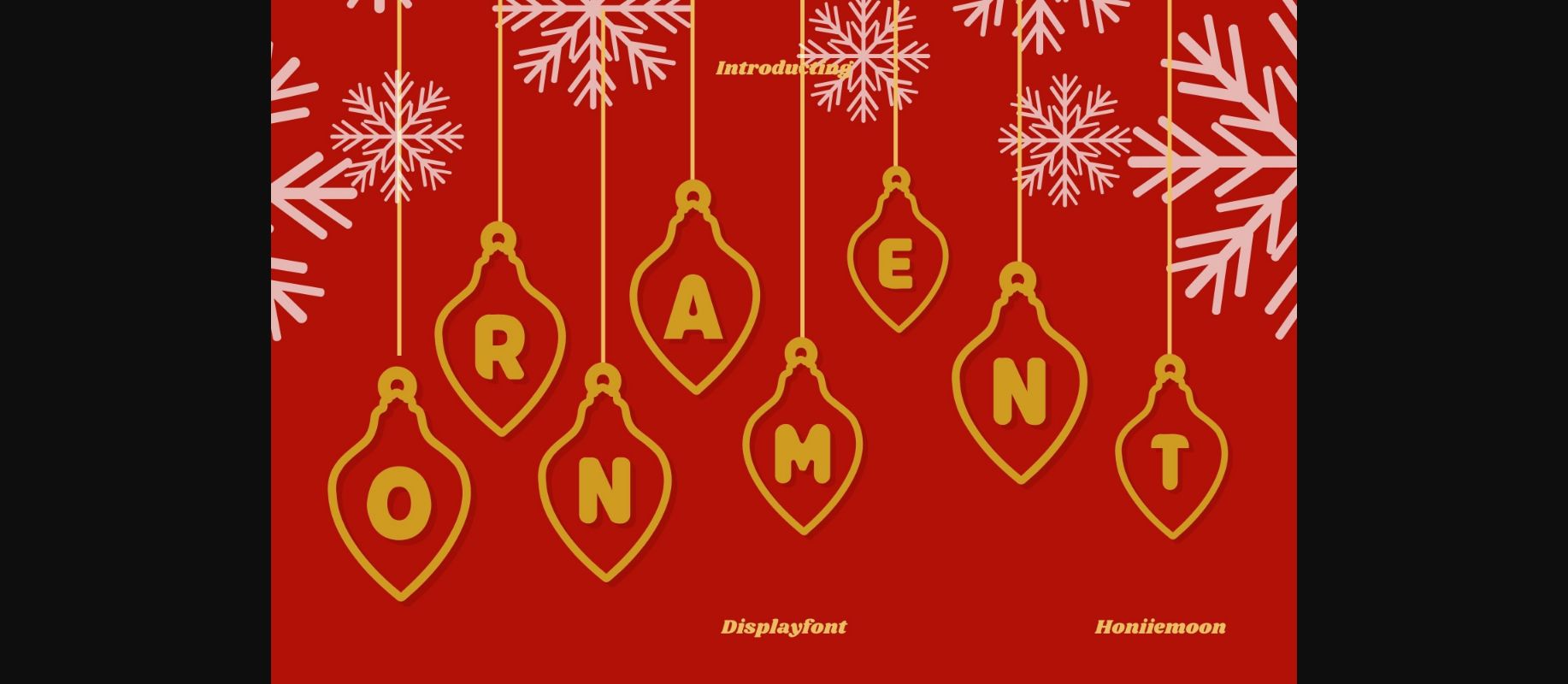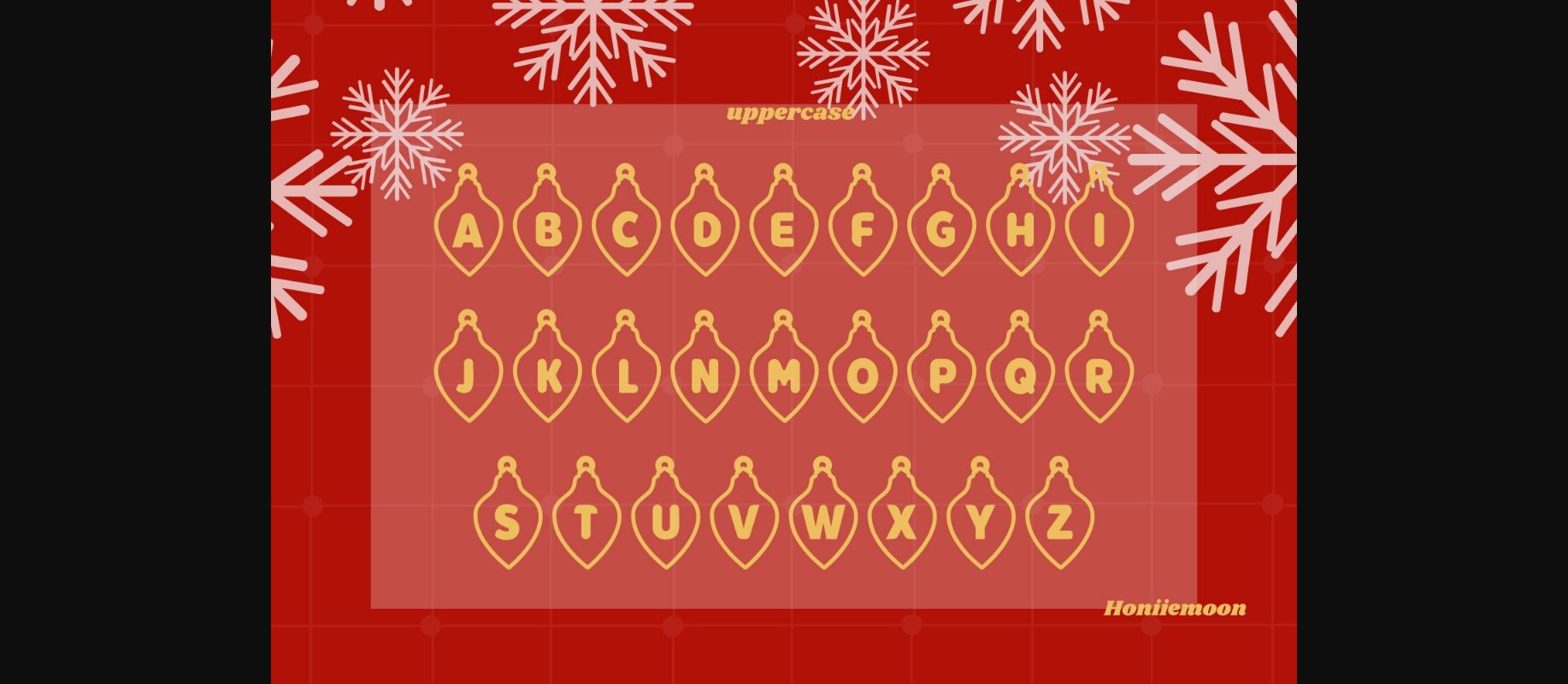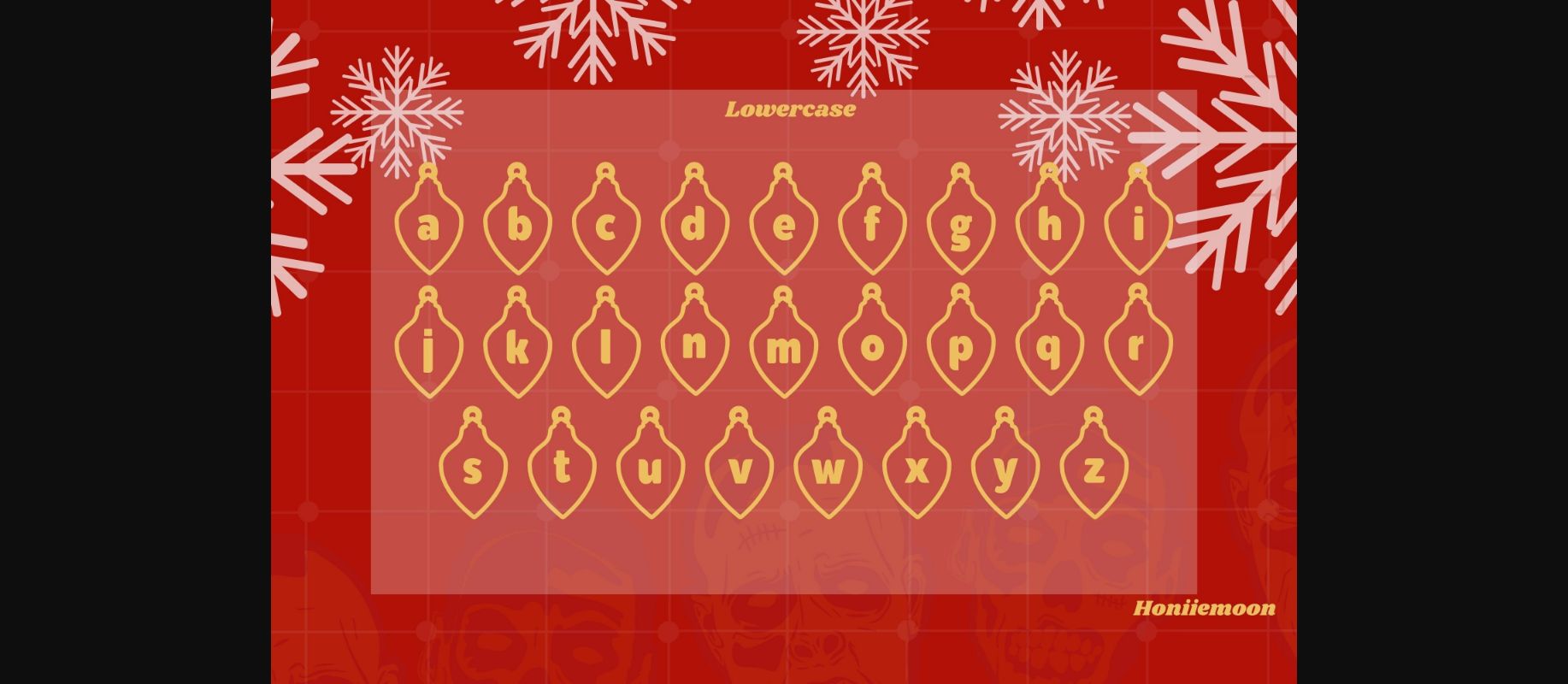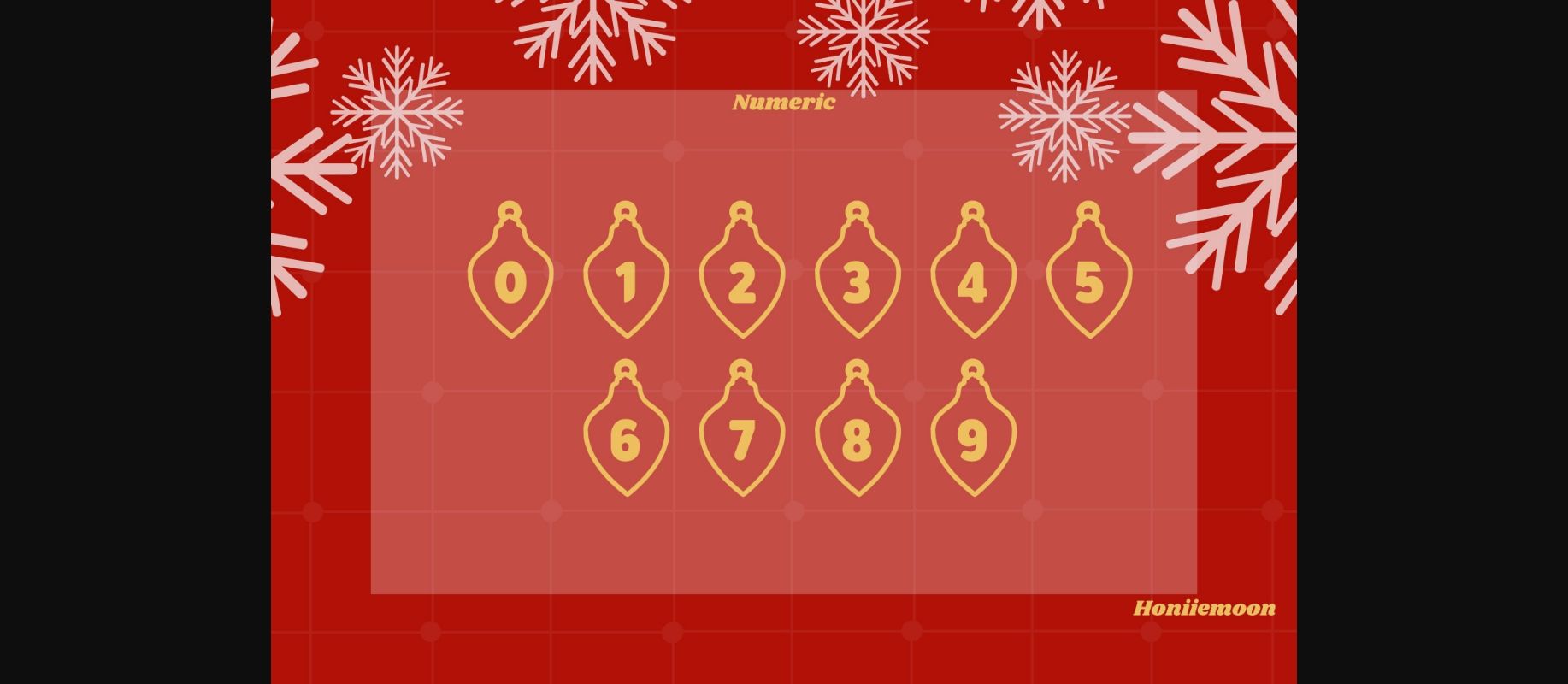
HomeDecorative FontsOrnament Font Decorative Fonts Ornament Font FacebookXPinterestWhatsApp 1 of 6 ... Ornament Font Poster 2... Ornament Font Poster 3... Ornament Font Poster 4... Ornament Font Poster 5... Ornament Font Poster 6... About Ornament Font Ornament is a cool and fun decorative font. It looks both cute and jolly and it will enhance each of your designs. The only limit is your imagination. DOWNLOAD NOW People also explored Day Best Font Realistic Mock-ups on Vintage Background Dreamcatcher Font Music Font Young Mom Font Pororo Font Harthen Font Agathias Font Danilla Jathorr Font 297 0 TagsOrnament Font Previous articleBone FontNext articleSpider Web Font LEAVE A REPLY Cancel reply Comment: Please enter your comment! Name:* Please enter your name here Email:* You have entered an incorrect email address! Please enter your email address here Website: Save my name, email, and website in this browser for the next time I comment. Personal Use Free Cline Personal Use Free Read more about this font Karmatic Arcade Personal Use Free Read more about this font BD Medled Personal Use Free Read more about this font Millea Personal Use Free Read more about this font BLOG Top 10 Handwritten Fonts That Elevate Your Designs Top 10 Handwritten Fonts That Will Elevate Your Designs Handwritten fonts bring a warm, personal touch to every creative project. Whether you're designing logos, invitations,... Modern Sans-Serif Fonts That Brands Love in 2025 Transform Your Website: Elevate Your Typography with 7 Best Web Font Generators Free Fonts Risk: Why Free Fonts Can Be Dangerous for Designers